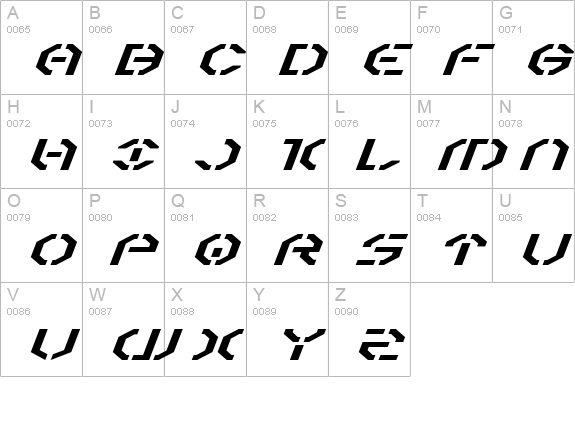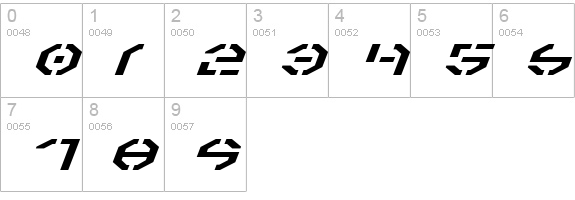
Year 3000 Expanded Italic is a distinctive, extended-width, italic variant in the Year typeface family \xE2\x80\x94 well suited to design and typography projects.
Year 3000 Expanded Italic font is a futuristic and sleek typeface designed for those looking to add a touch of modernity to their projects. Its elongated and italicized letterforms exude a sense of sophistication and innovation, making it perfect for branding, headlines, and digital designs. This font is versatile and can be used in a variety of creative projects, from websites to posters to advertisements. What makes Year 3000 Expanded Italic font even more appealing is that it is available for free download at FontsMarket.com. This means that you can access this cutting-edge font without any cost, allowing you to elevate your designs without breaking the bank. Don't miss out on the opportunity to enhance your projects with the Year 3000 Expanded Italic font - download it for free today!